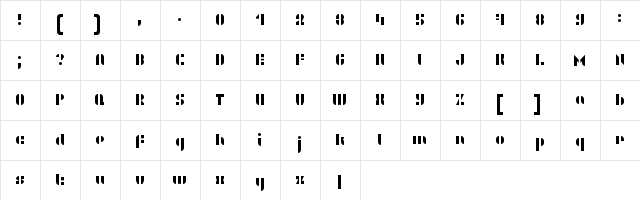
WLM Stencils Swashy Regular
Design Context for WLM Stencils Swashy Typeface
WLM Stencils Swashy borrows the utilitarian aesthetic of stencil lettering, with its characteristic cutaways and no-frills construction lending an industrial edge.
Ideal for industrial branding, streetwear, military-adjacent aesthetics, and urban signage projects.
Pro Tip: Pair WLM Stencils Swashy with raw, utilitarian design elements — exposed concrete textures, flat colour, and minimal ornamentation suit it well.